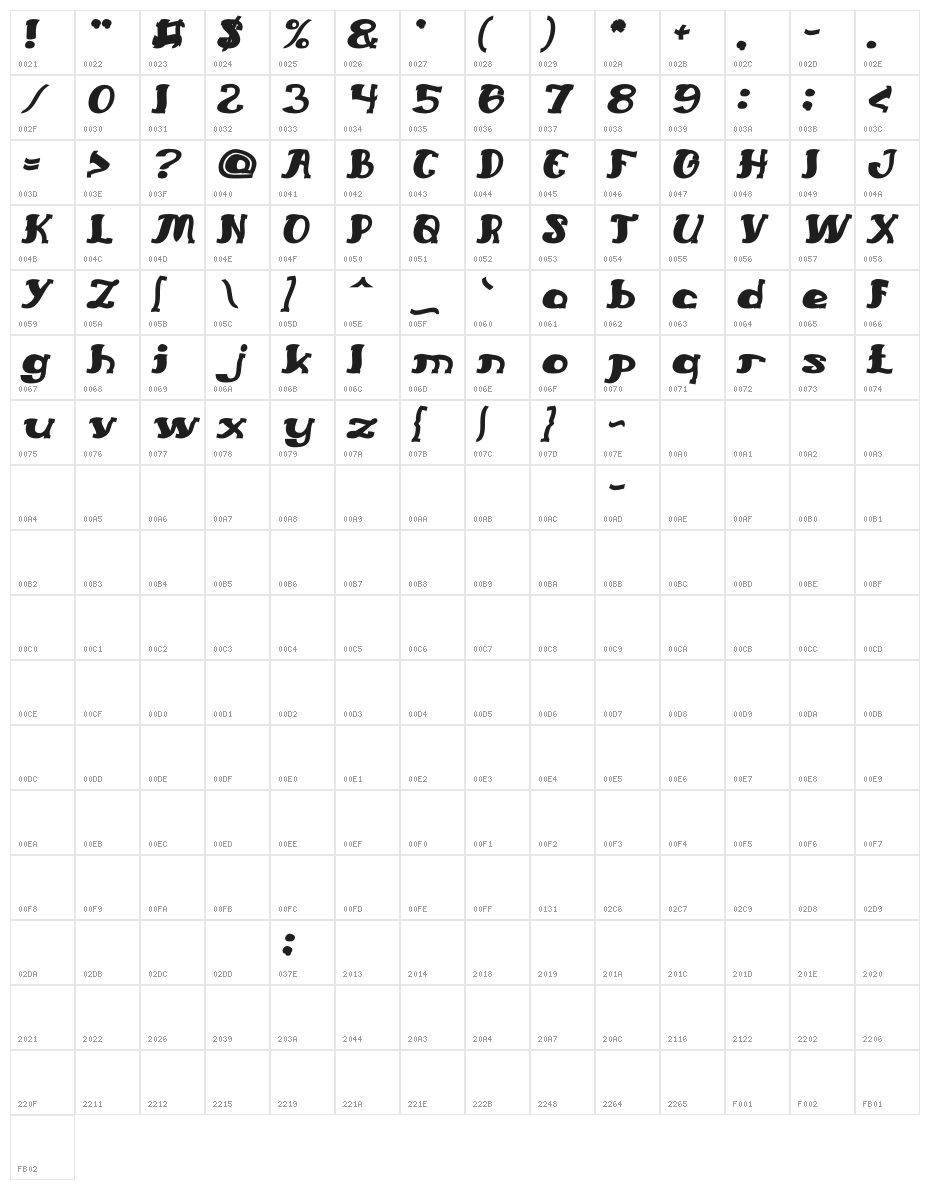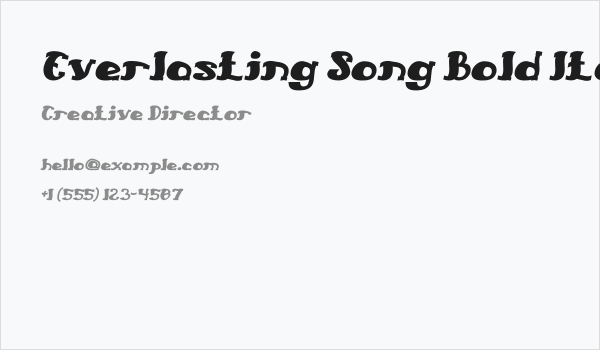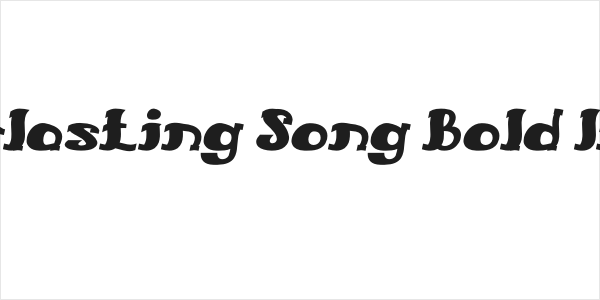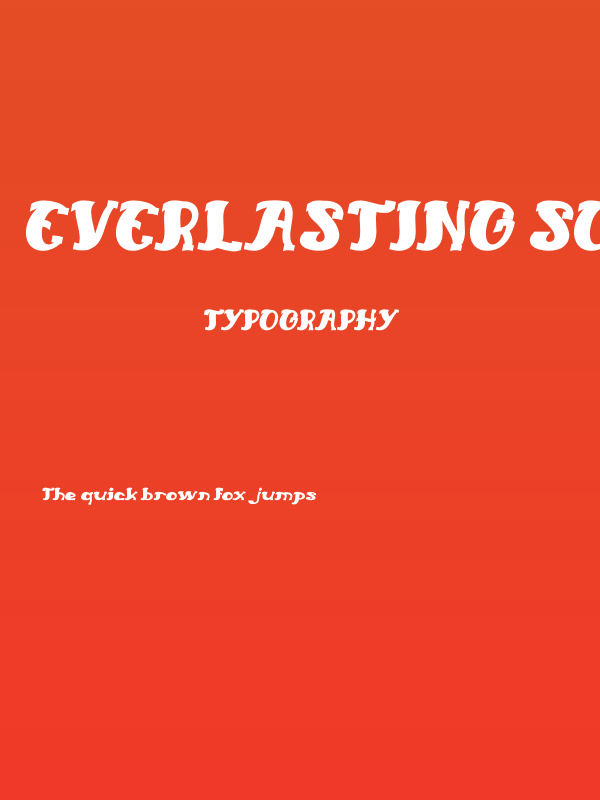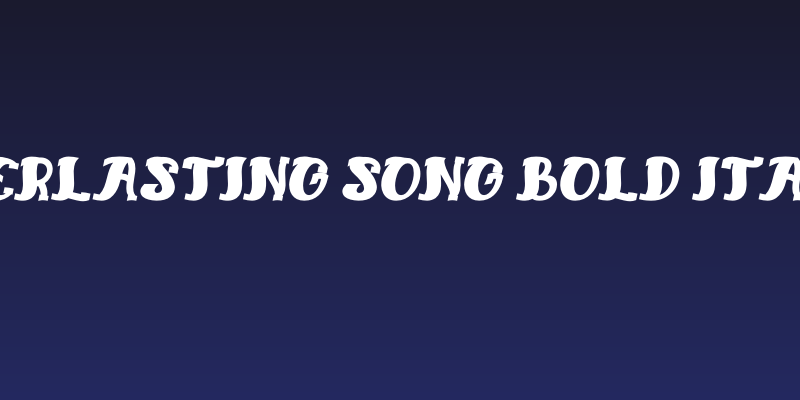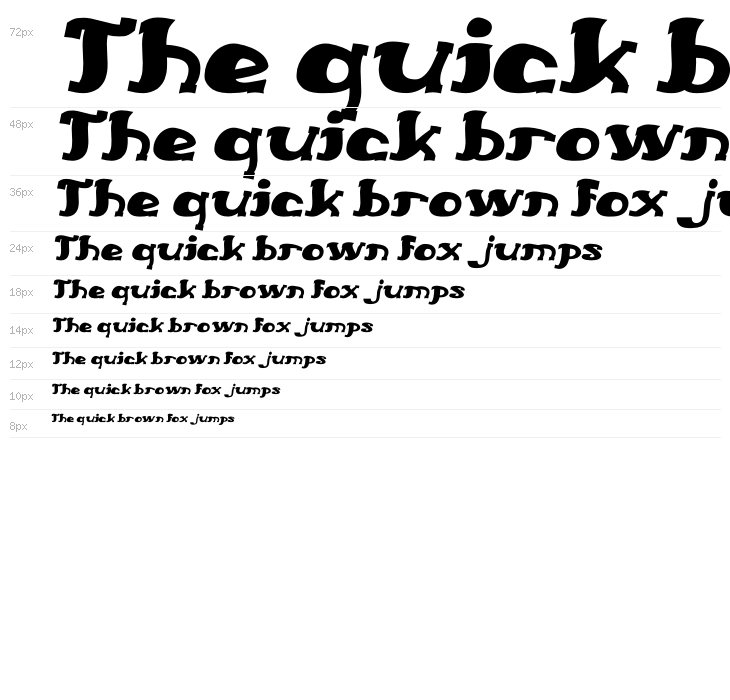
Everlasting Song Bold Italic Font
Everlasting Song Bold Italic Description
This font features a bold and italic style with a distinctive, flowing script that combines both elegance and strength. The characters are designed with a high contrast in stroke thickness, giving them a dynamic and expressive appearance. The uppercase letters are particularly striking, with sweeping curves and pronounced serifs that add to the font's decorative appeal. The lowercase letters maintain a consistent style, ensuring readability while preserving the artistic flair. Numbers and special characters are equally bold and maintain the same stylistic elements, making them suitable for a variety of uses. The overall design is both modern and classic, making it versatile for different design needs.
| Proposed Projects | Ideal for branding, headlines, invitations, and artistic projects requiring a bold statement. |